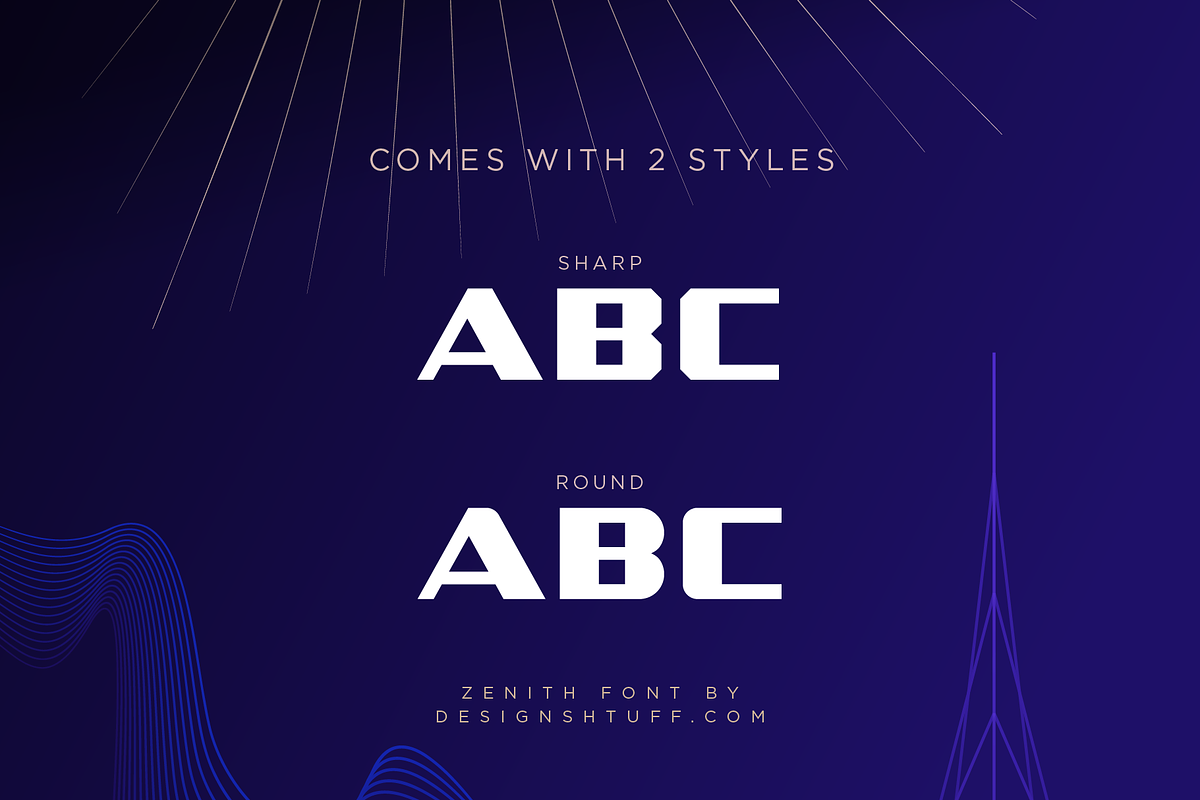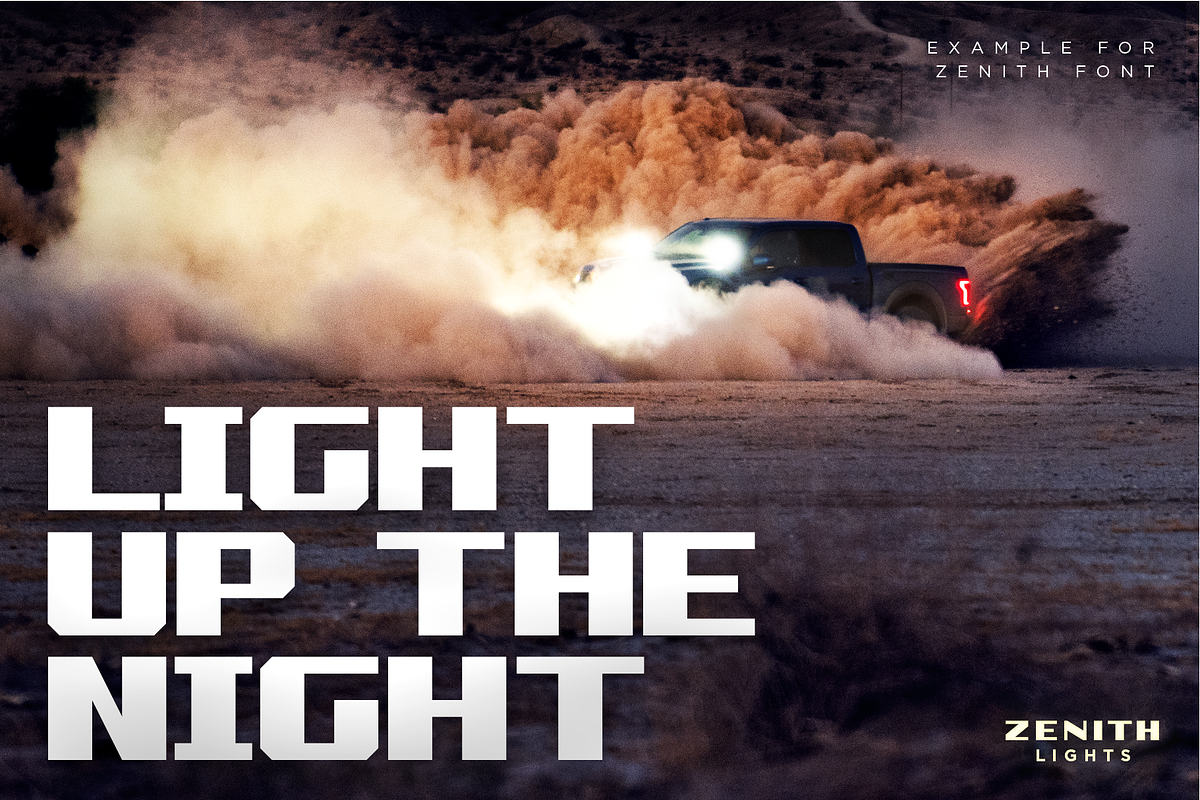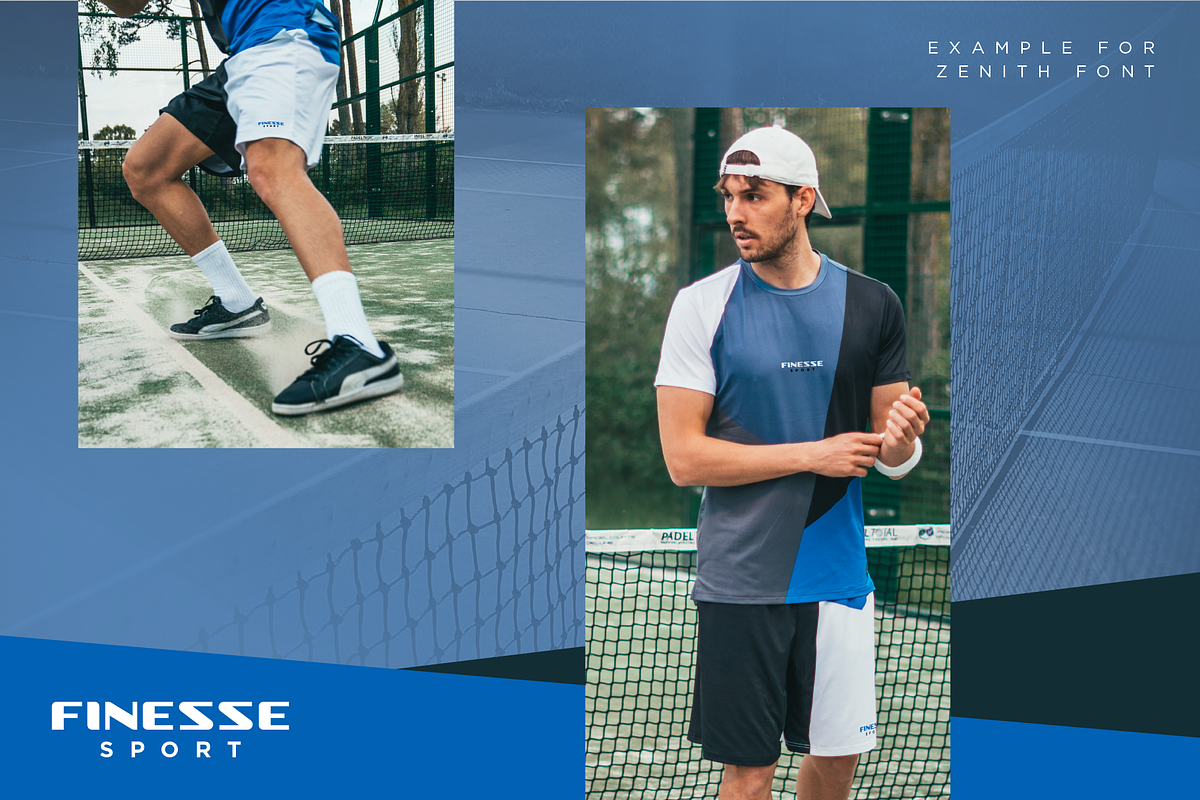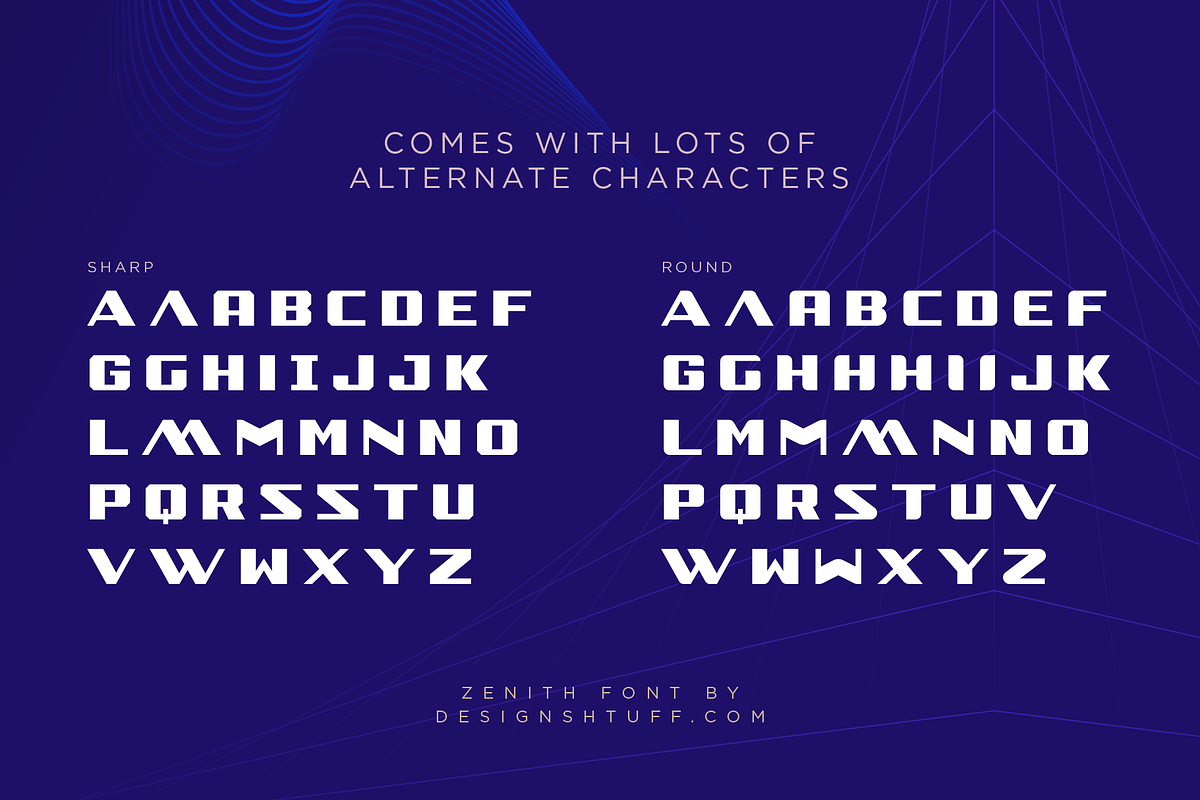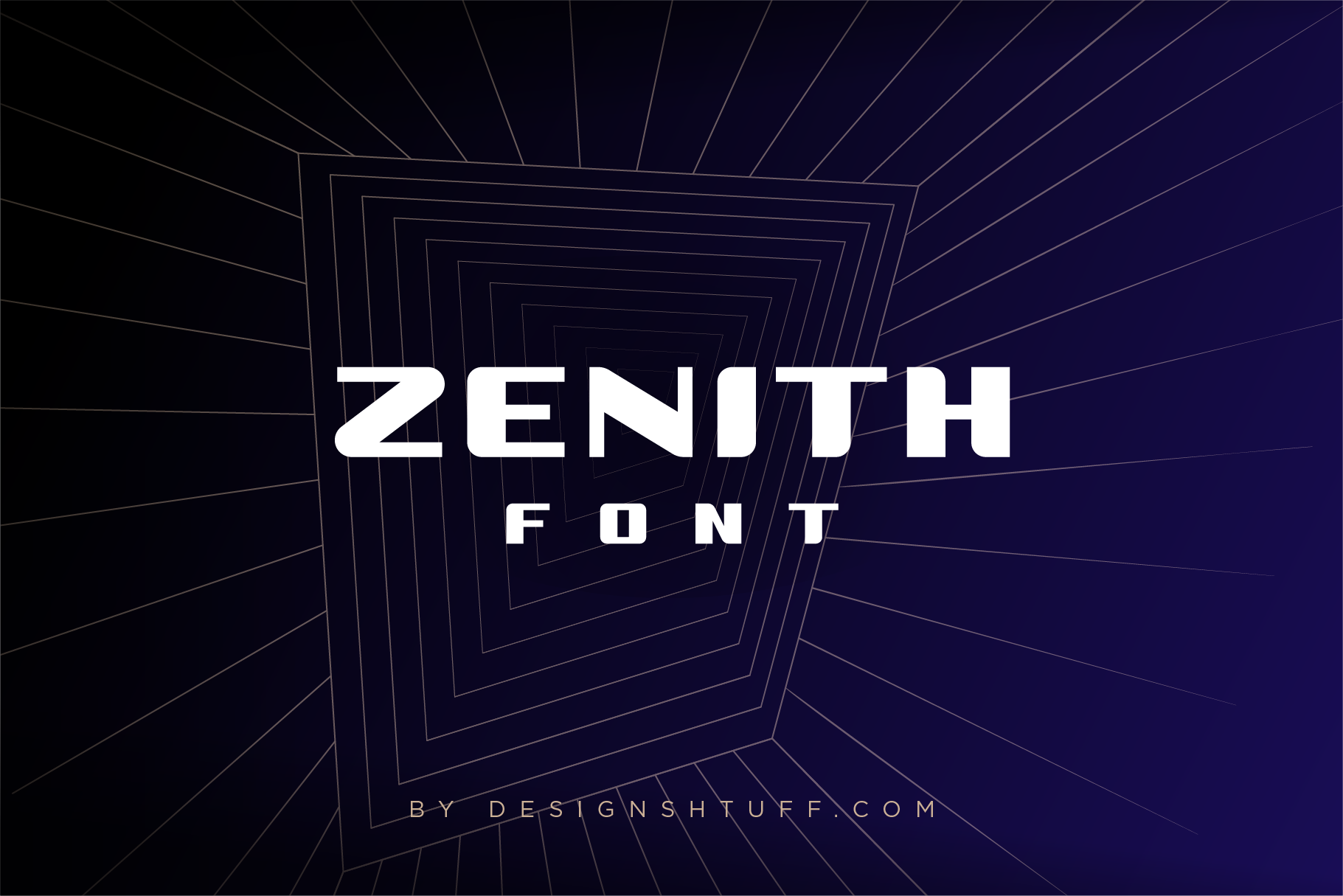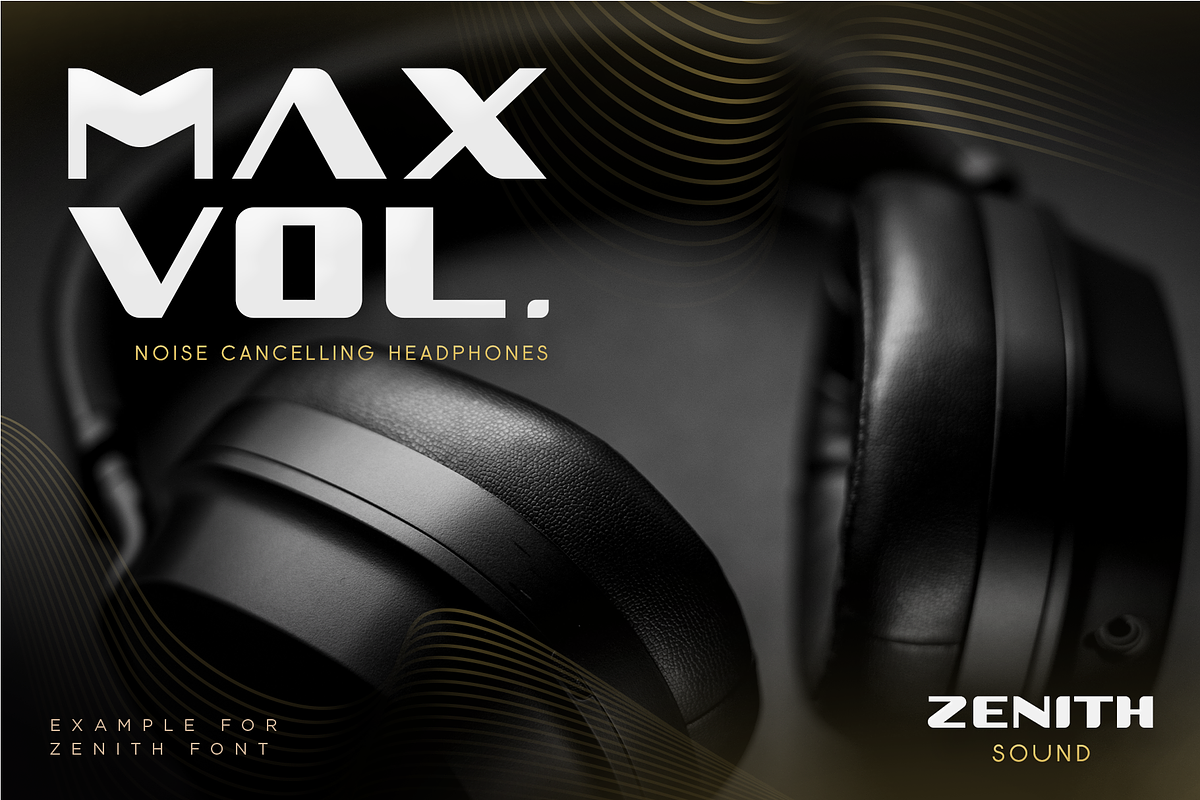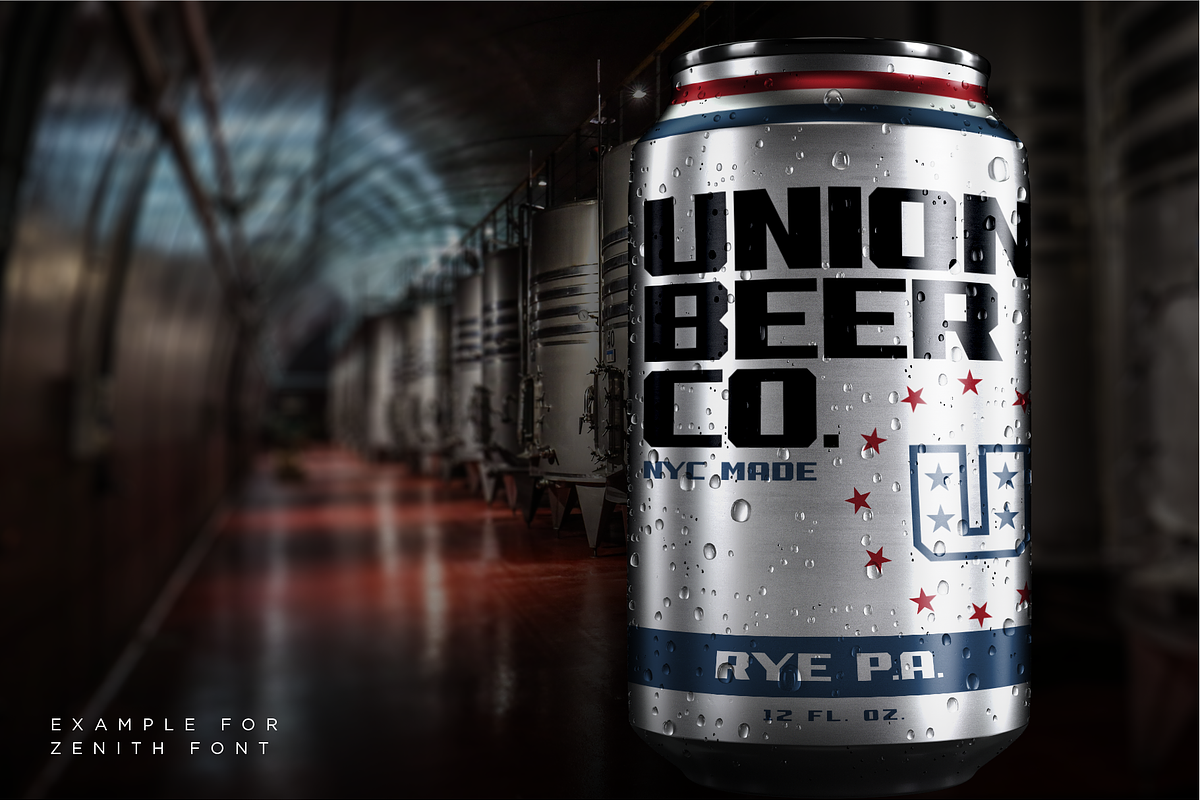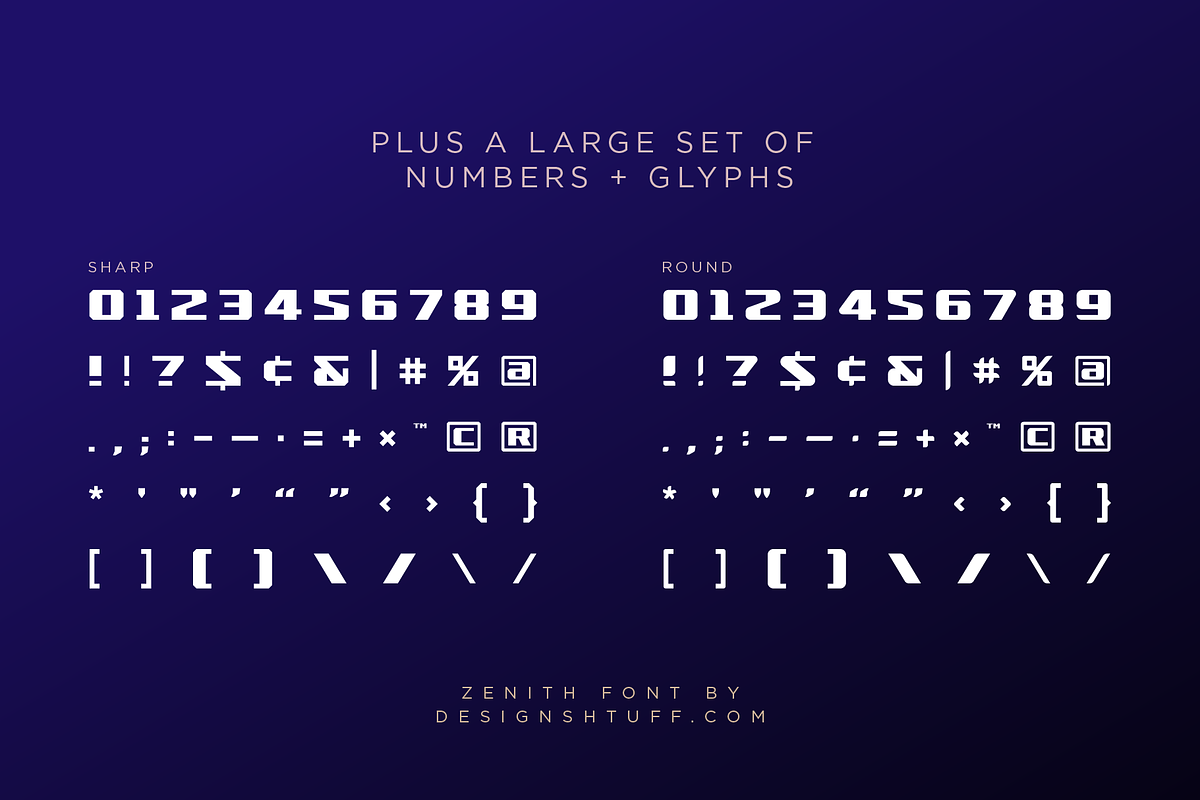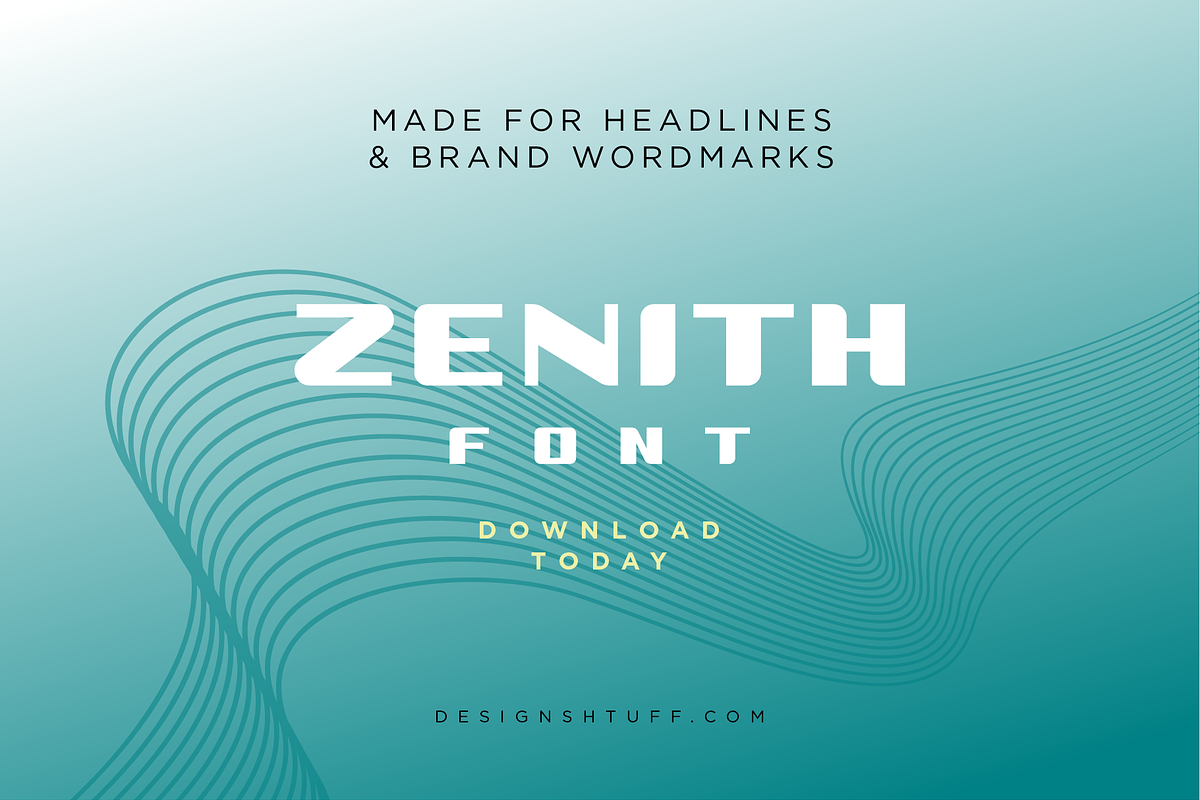
ZENITH DISPLAY FONT • ROUND + SHARP
A UNIQUE ALL CAPS FONT DESIGNED SPECIFICALLY FOR CREATING ON-POINT BRANDING AND HEADLINES.
Zenith comes in two styles, round and sharp. Both styles have unique alternate characters for specific letters and a full set of numbers. Plus, a fair amount of glyphs and punctuation.